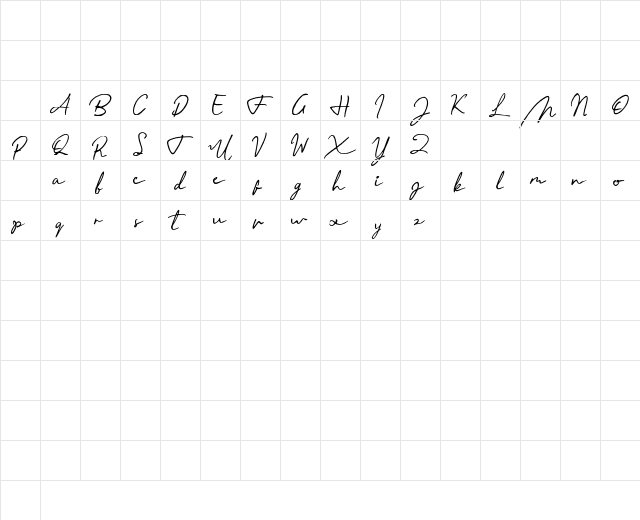
Menttarich Personal Use Only Regular
Designer: Fuad Hasan
Design Context for Menttarich Personal Use Only
Menttarich Personal Use Only is a composed and adaptable typeface that performs quietly and consistently across a wide range of design contexts.